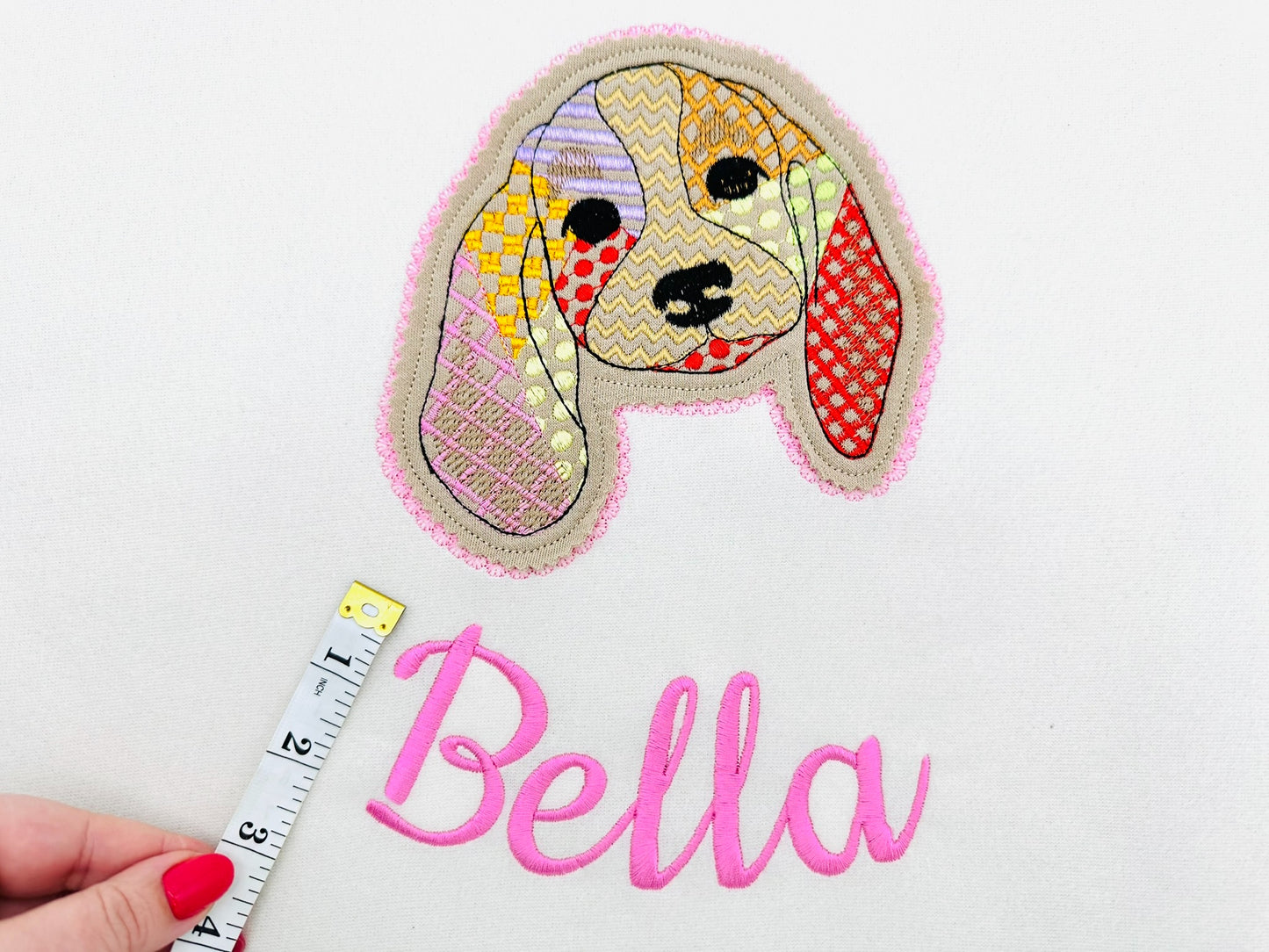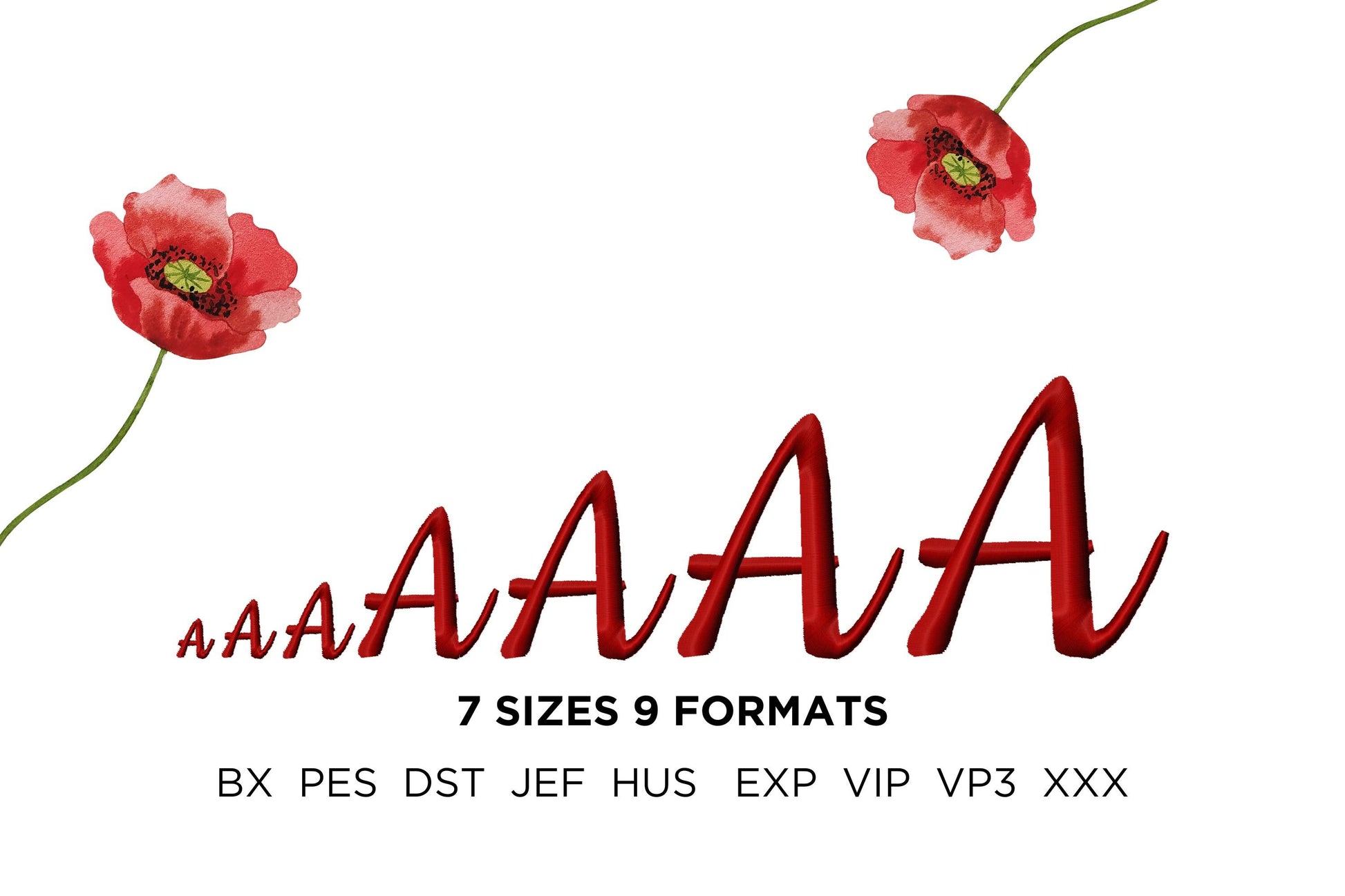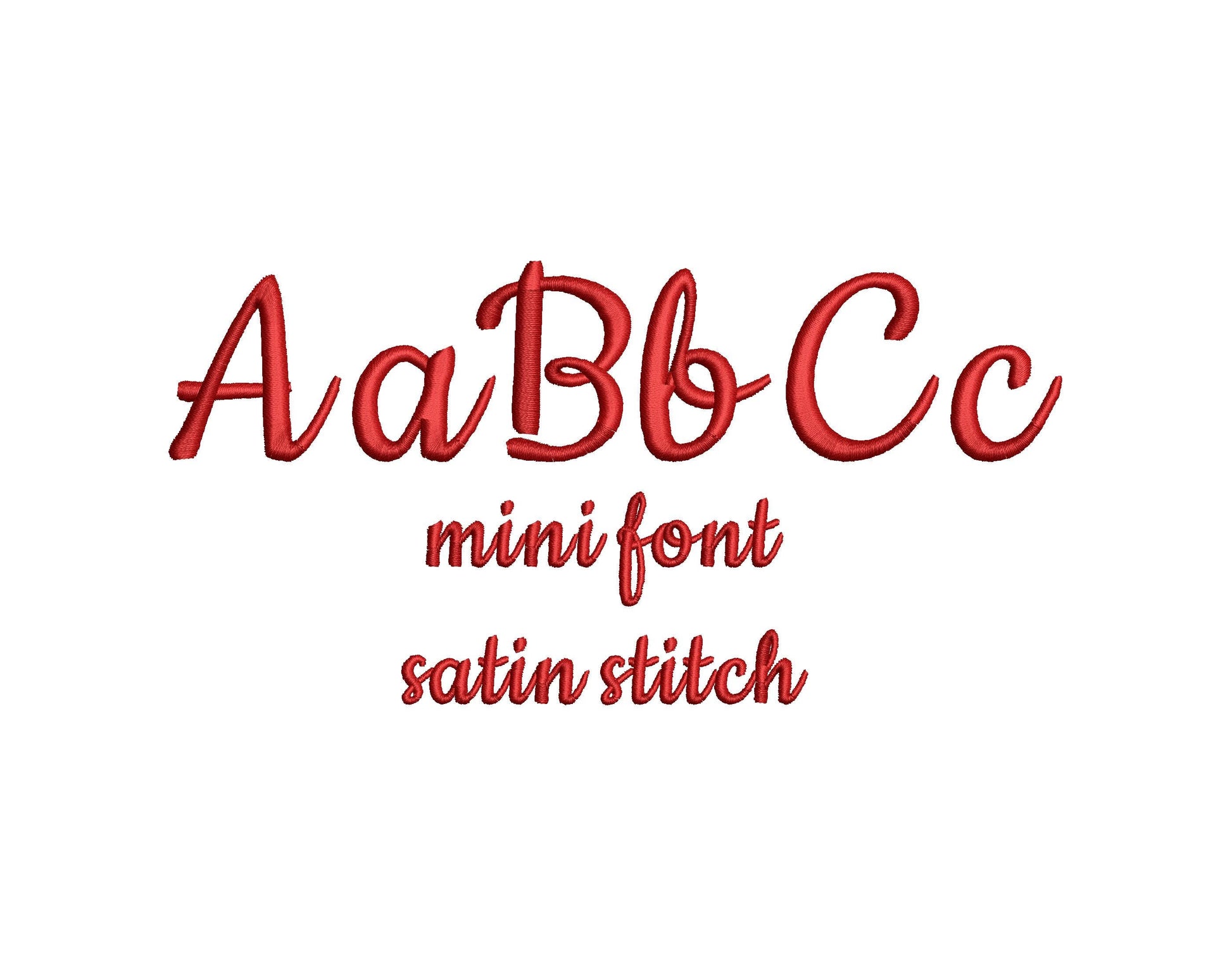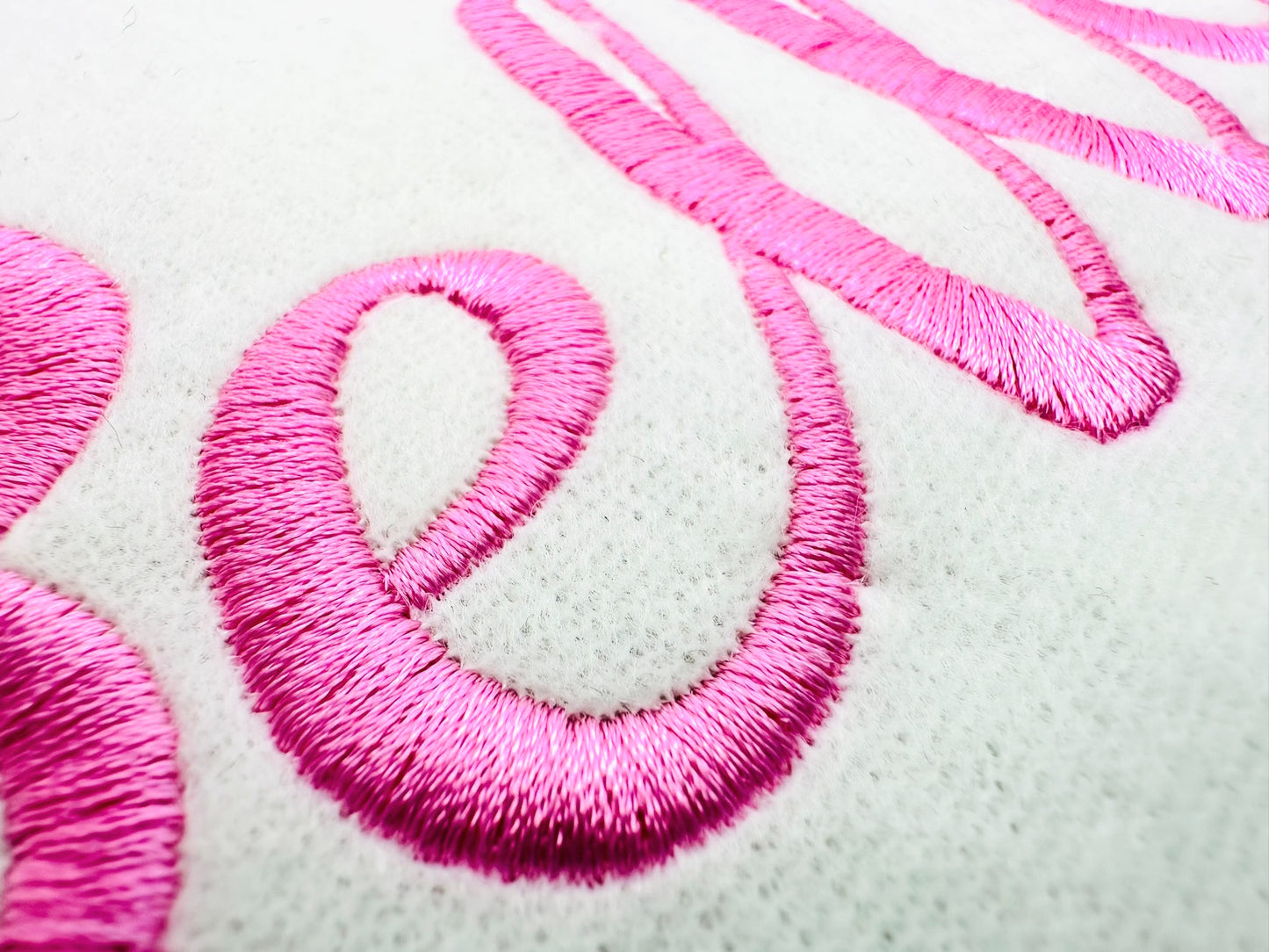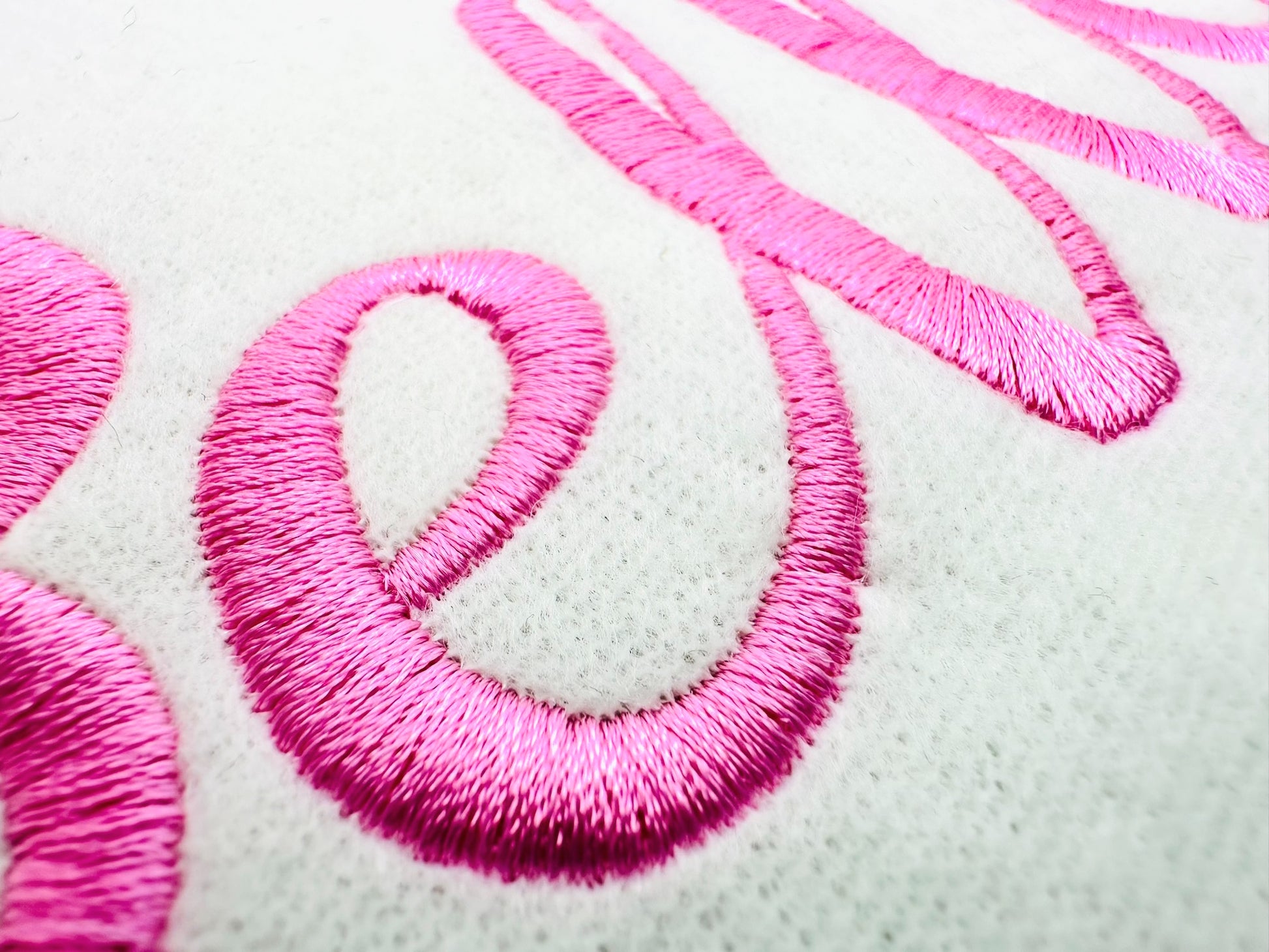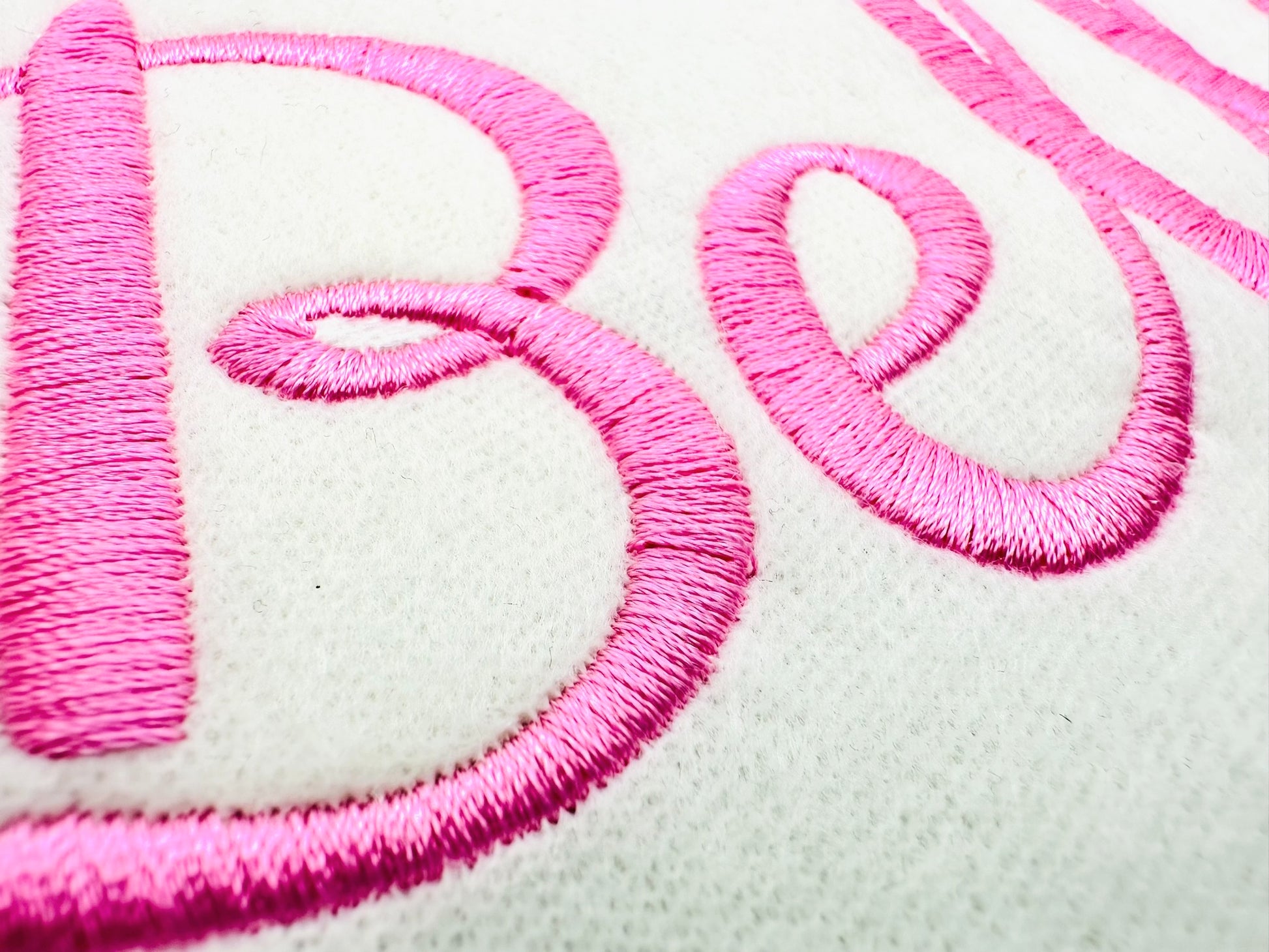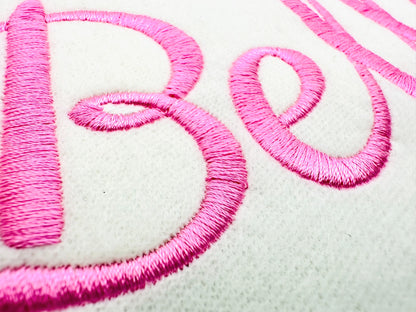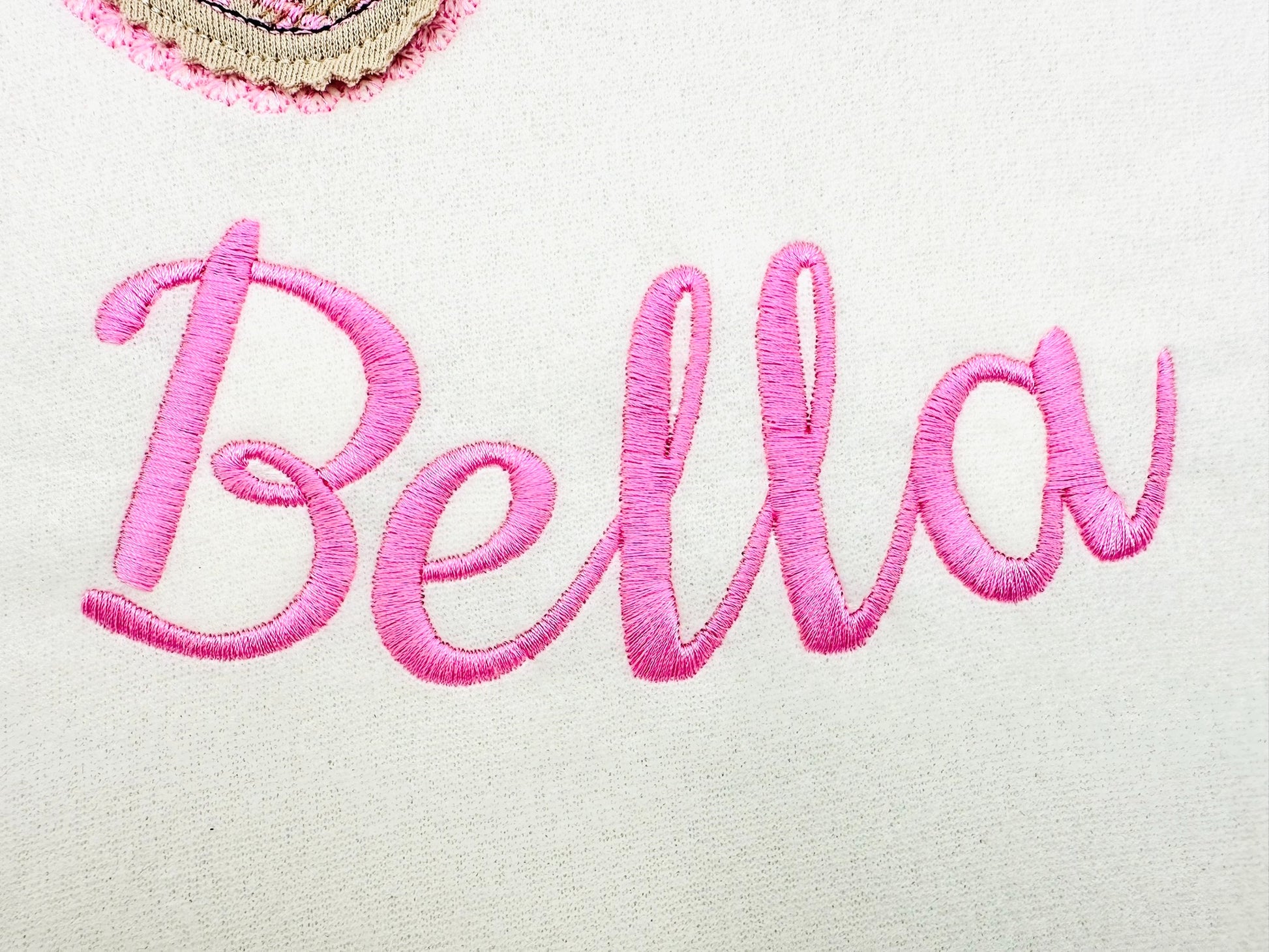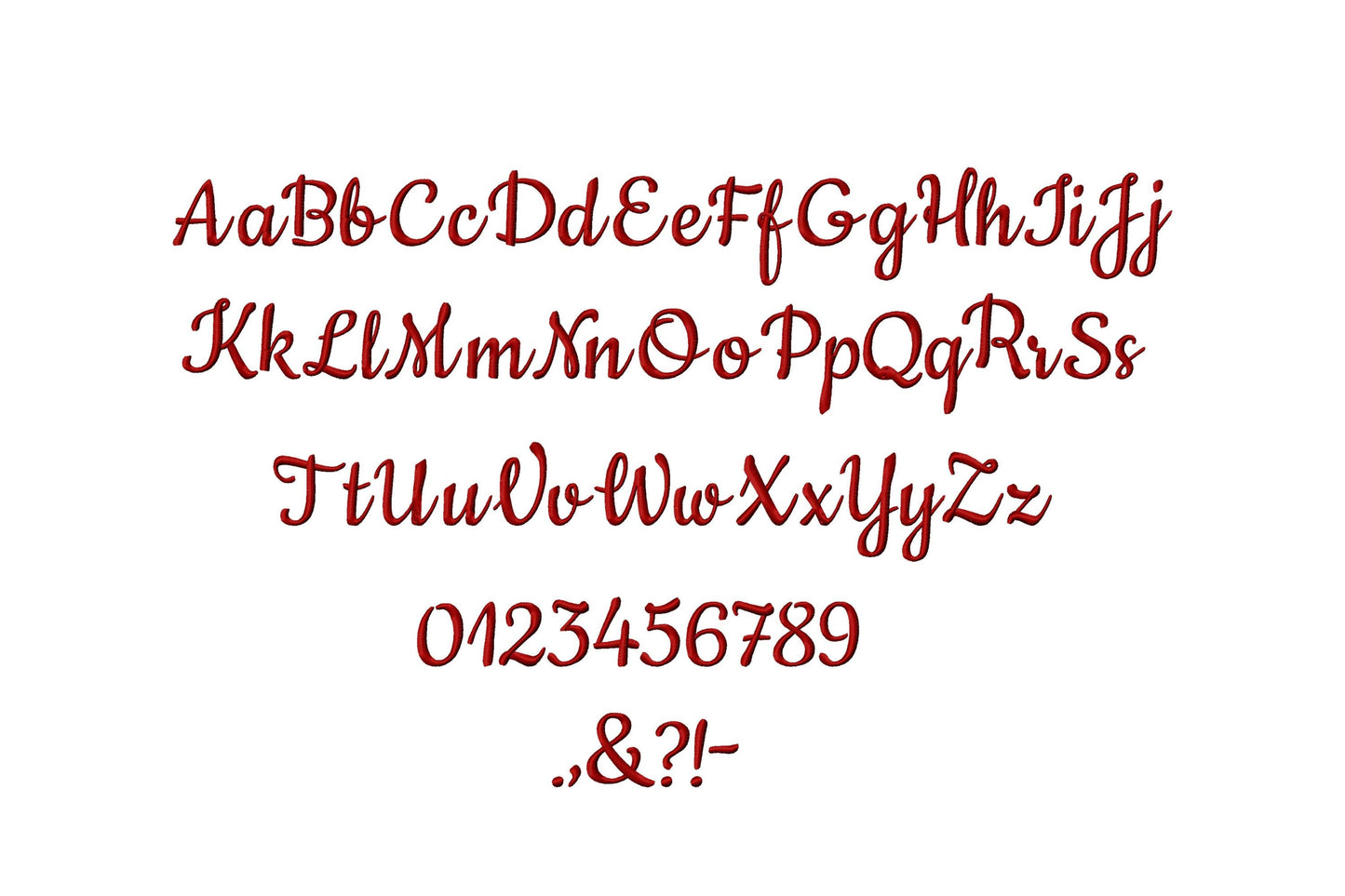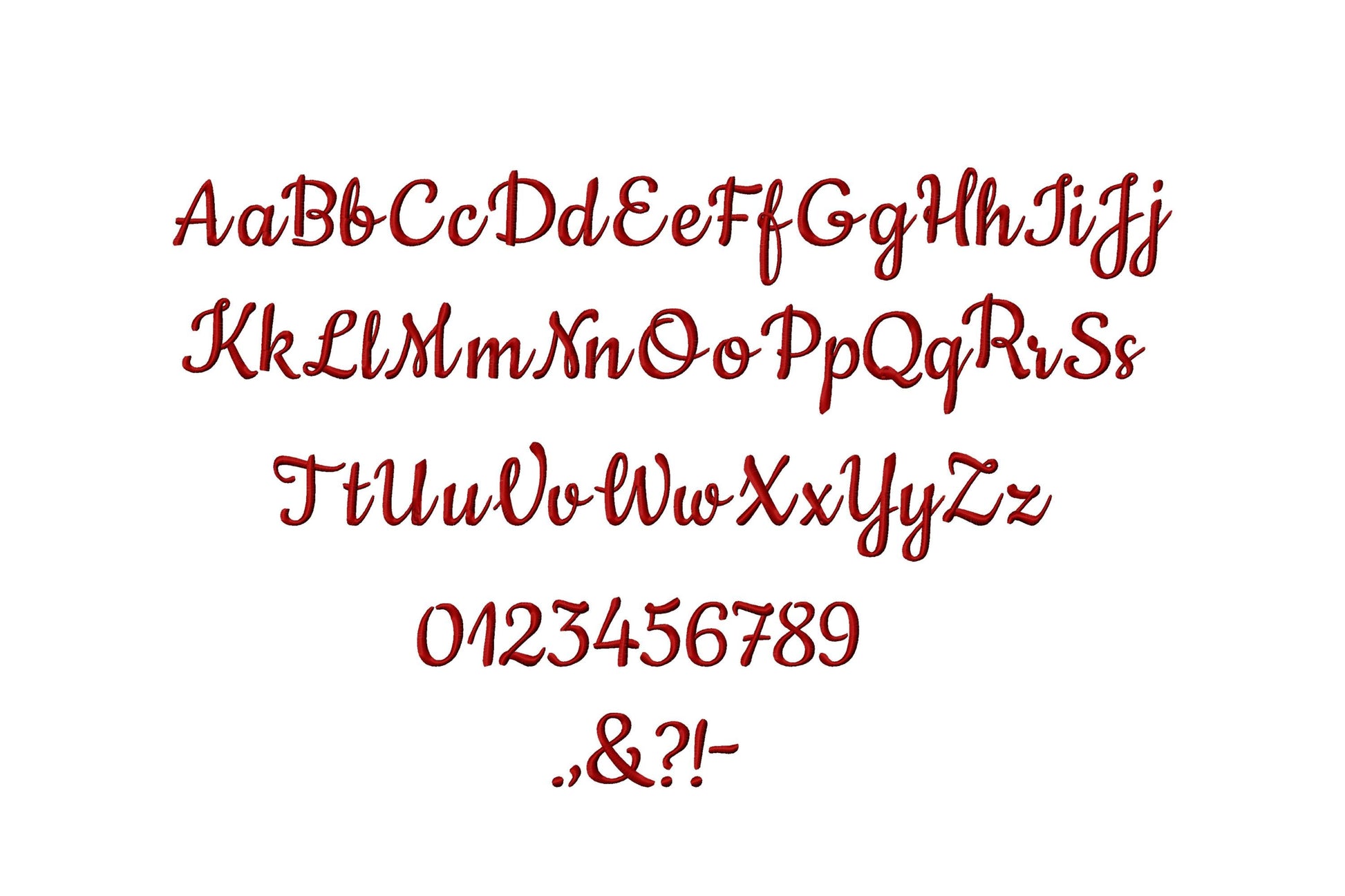
Or click to open the linkA satin stitch handwritten script in tiny to small sizes, for baby and kids' names, little monograms and tags.
Uppercase and lowercase letters, numbers and punctuation in seven sizes: 0.4, 0.6, 0.8, 1.5, 1.8, 2.4 and 2.8 inches.